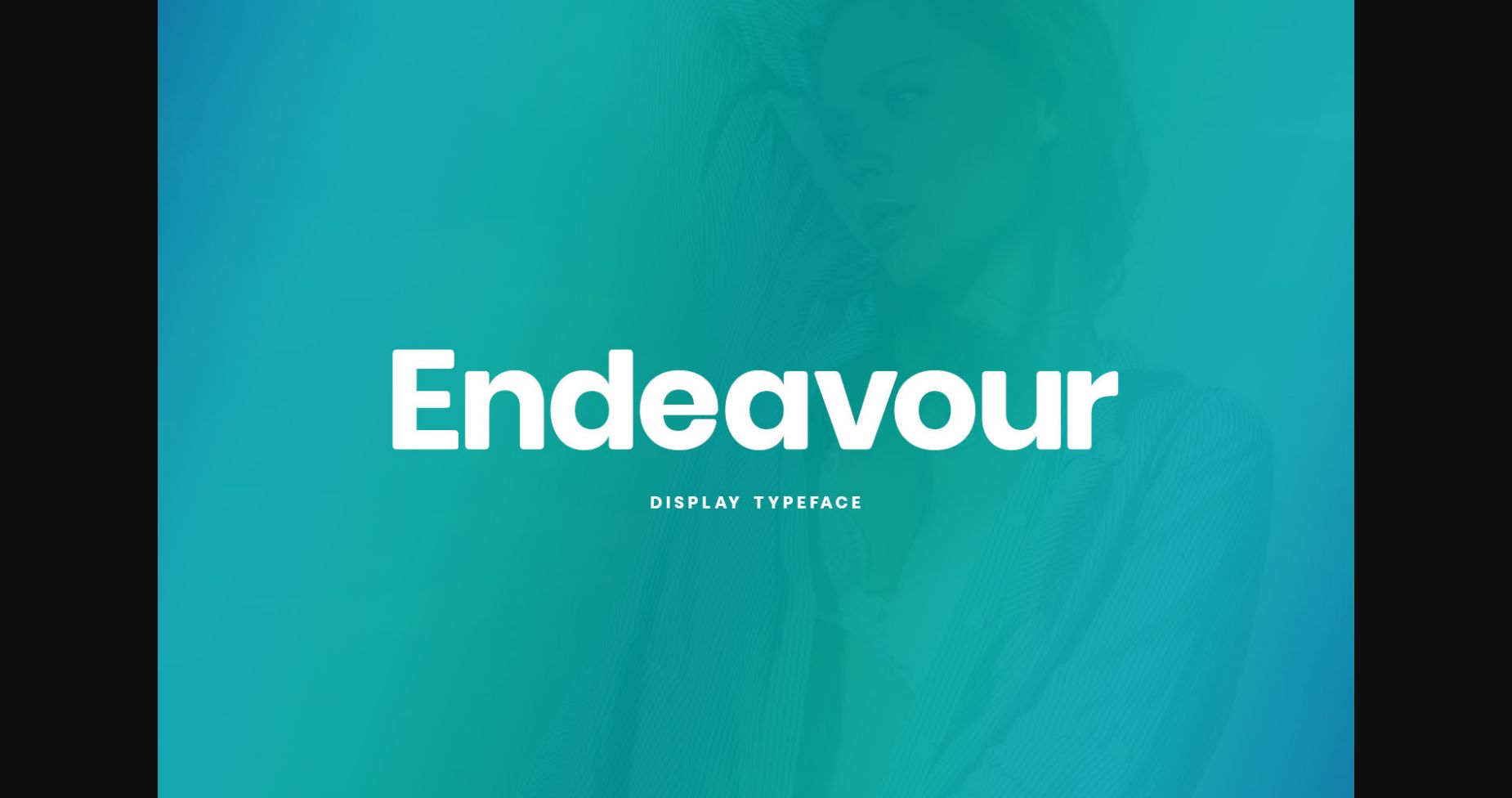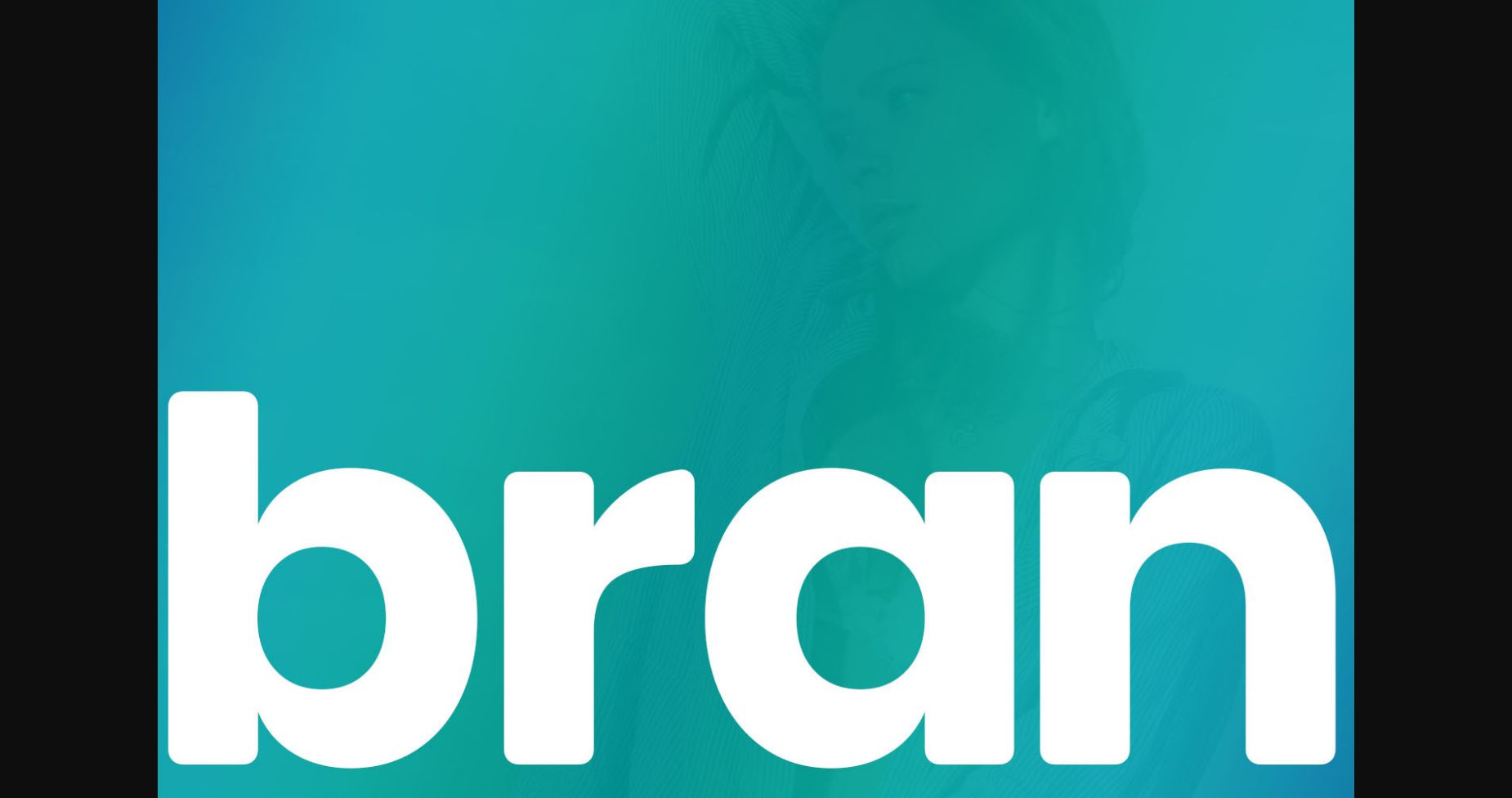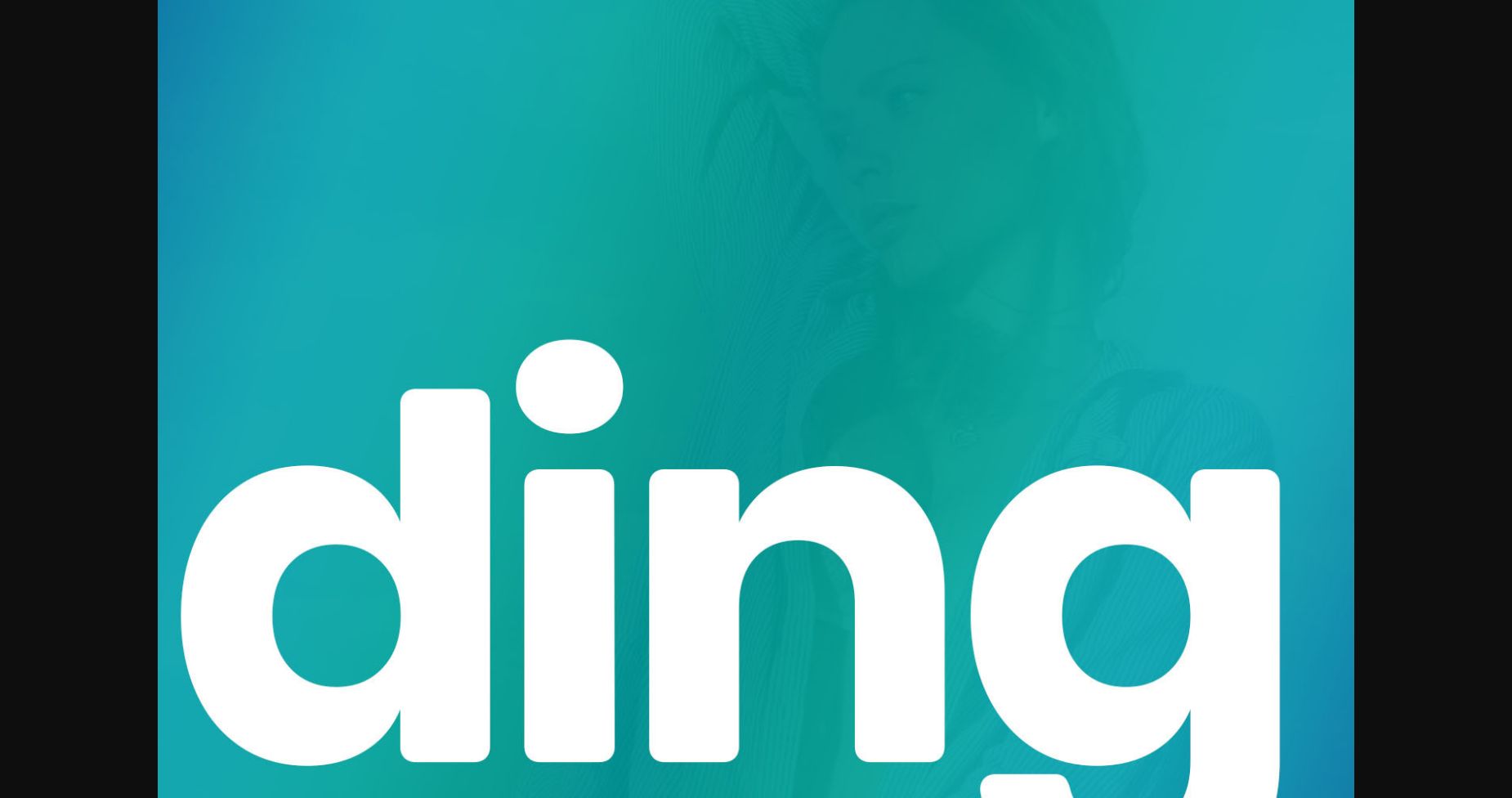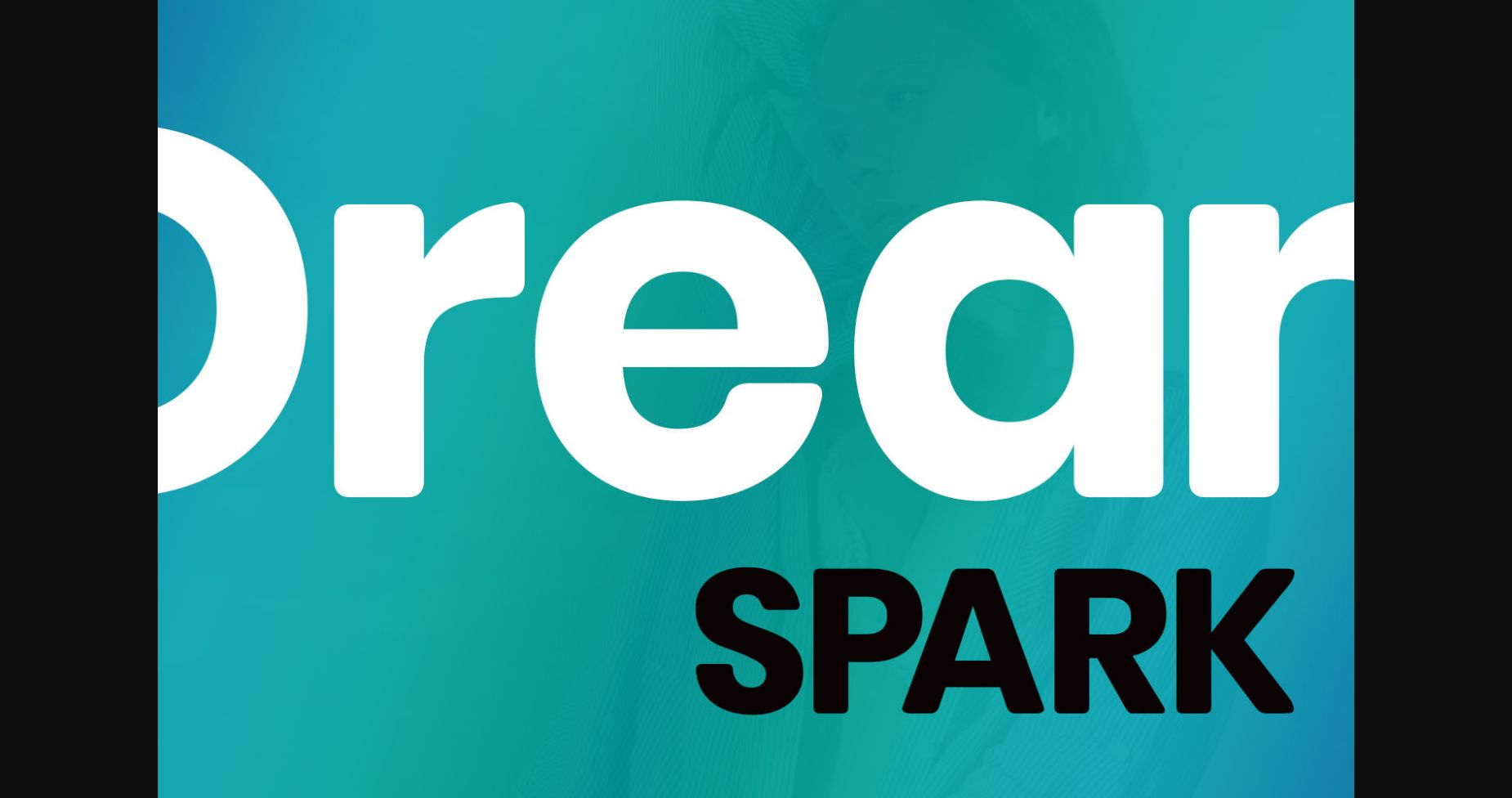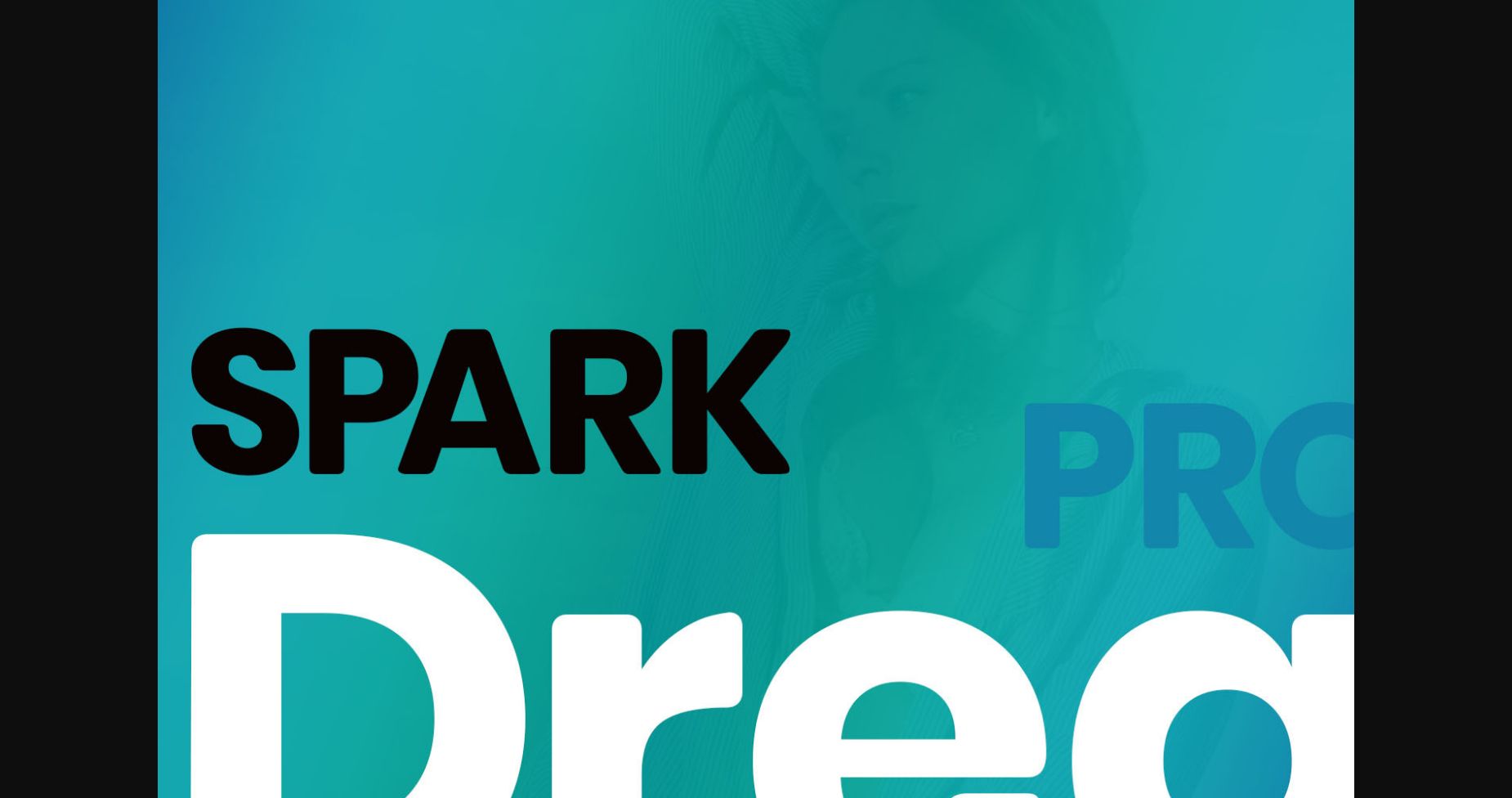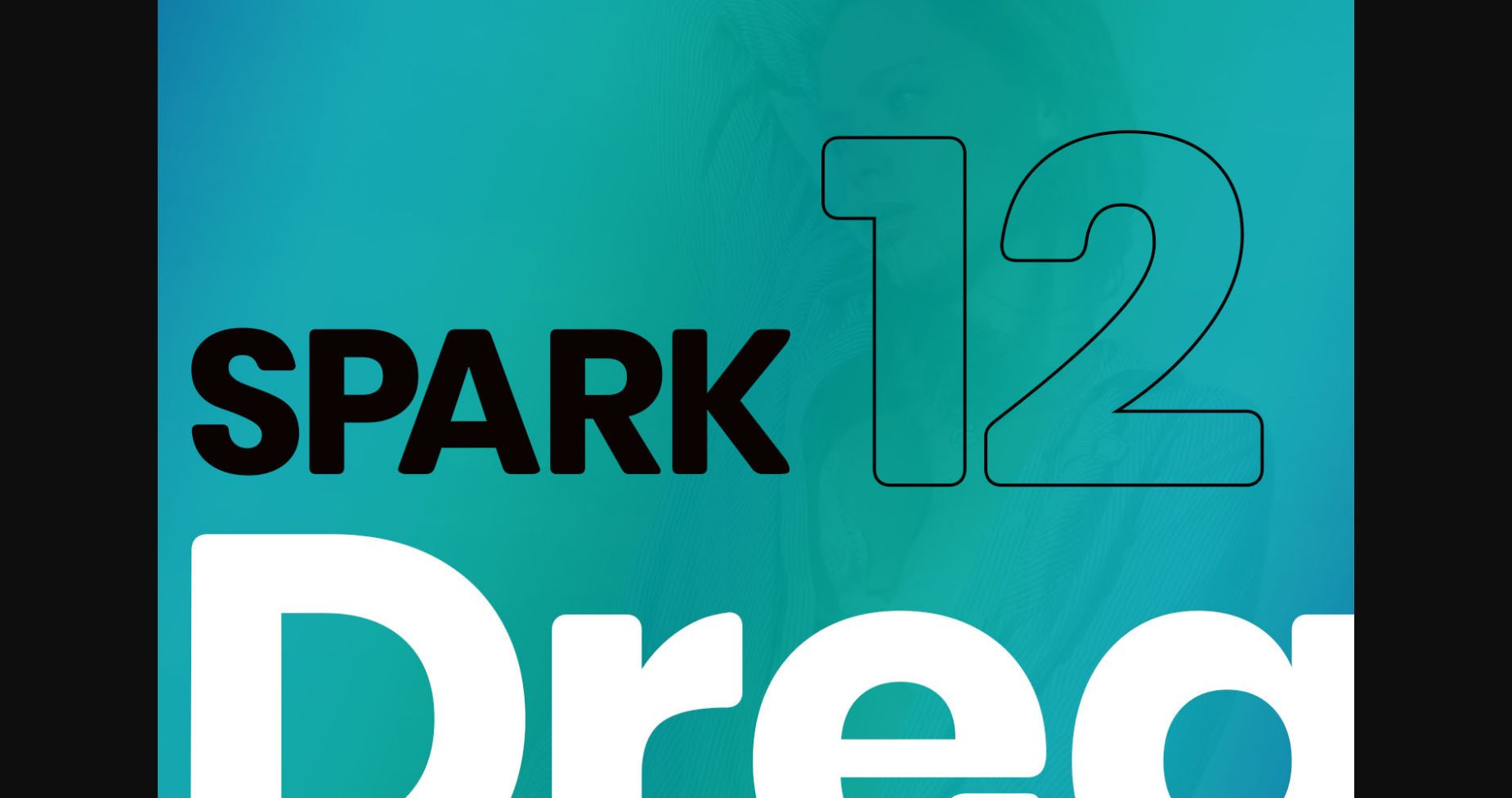
HomeSans Serif FontsEndeavour Font Sans Serif Fonts Endeavour Font FacebookXPinterestWhatsApp 1 of 8 ... Endeavour Font Poster 2... Endeavour Font Poster 3... Endeavour Font Poster 4... Endeavour Font Poster 5... Endeavour Font Poster 6... Endeavour Font Poster 7... Endeavour Font Poster 8... About Endeavour Font Endeavour is a cool, clean and adaptable sans serif font. It can easily be matched to an incredibly large set of projects, so add it to your creative ideas and notice how it makes them stand out! DOWNLOAD NOW People also explored Stemless Wine Clear Glass Mockup Heallington Font MGN Albiston Font Thalib Font Starlink Font Rieven Bronetto Script Bouncyland Font Butterfly Multicolor Font 367 0 TagsEndeavour Font Previous articleMagic Line FontNext articleLiblarypoint Font LEAVE A REPLY Cancel reply Comment: Please enter your comment! Name:* Please enter your name here Email:* You have entered an incorrect email address! Please enter your email address here Website: Save my name, email, and website in this browser for the next time I comment. Personal Use Free Pumpkins Candles Personal Use Free Read more about this font Hanifah Personal Use Free Read more about this font Stigma Font Personal Use Free Read more about this font Consequences Personal Use Free Read more about this font BLOG Free Fonts Risk: Why Free Fonts Can Be Dangerous for Designers Free Fonts Risk: Why Free Fonts Can Be Dangerous for Designers Using free fonts is a common practice in web and graphic design. However, the... Transform Your Website: Elevate Your Typography with 7 Best Web Font Generators How to Cut Any Font on Cricut: Convert a Font to SVG (Free) Fonts That Capture the Spirit of New York City